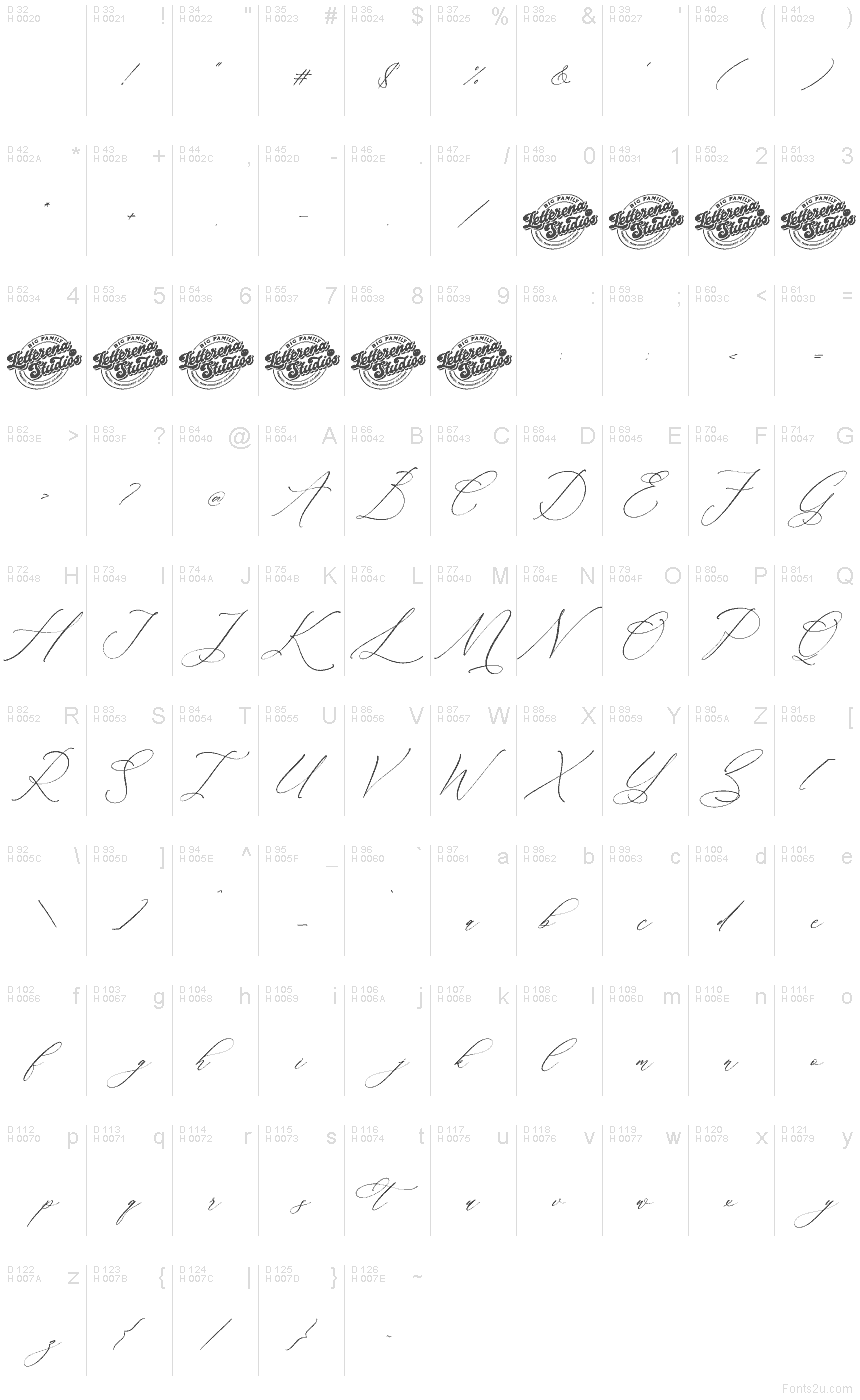
Creattons Balleryna DEMO Italic
Creattons Balleryna Italic font by Storytype Studio is a light, flowing script font, recognizable for its elegant and expressive look. The design’s style evokes a sense of high-class sophistication suitable for formal invitations or luxury branding. It draws historical references from classic calligraphy while remaining updated for contemporary applications.